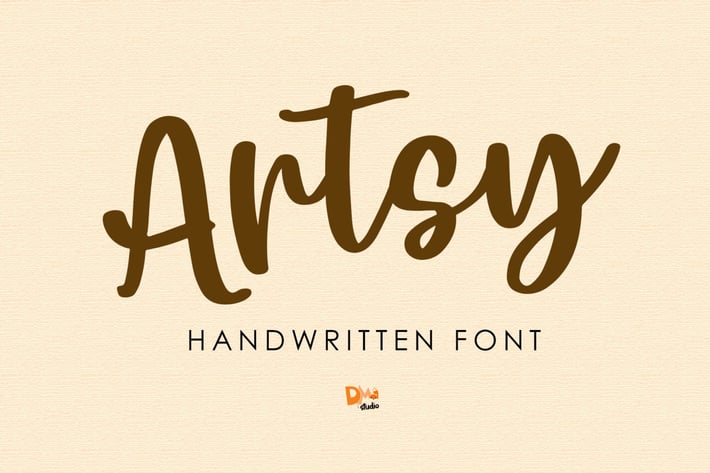
Artsy - Handwritten Font
Artsy Modern Handwritten Script Font
Get this lovable handwritten font for your lovely design, craft, quotes, homedecor, svg cut and much more!